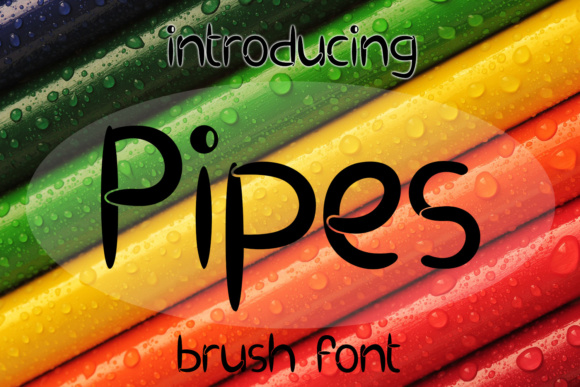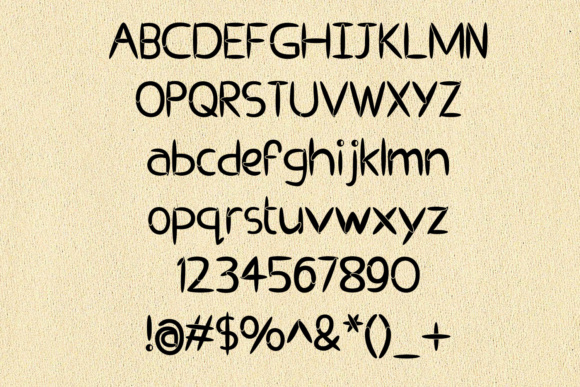
EP Pipes Font
About EP Pipes Font
EP Pipes is a beautiful typeface which can be used for various purposes such as: wedding cards, quotes, headings, blogs, logos, invitations and much more!